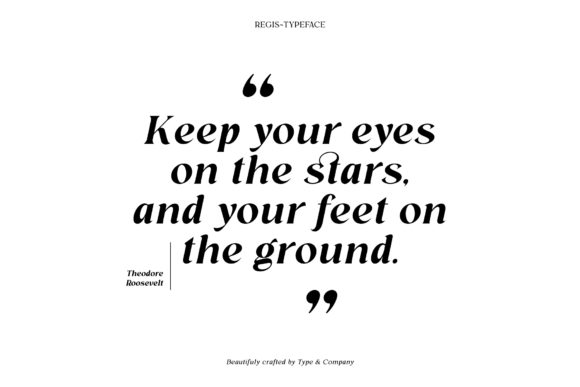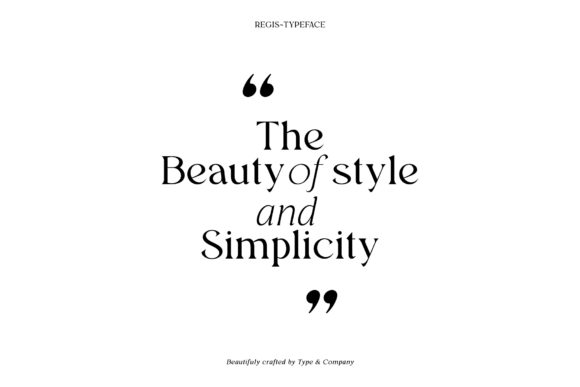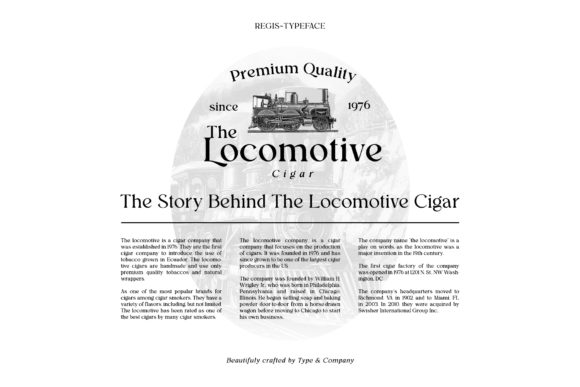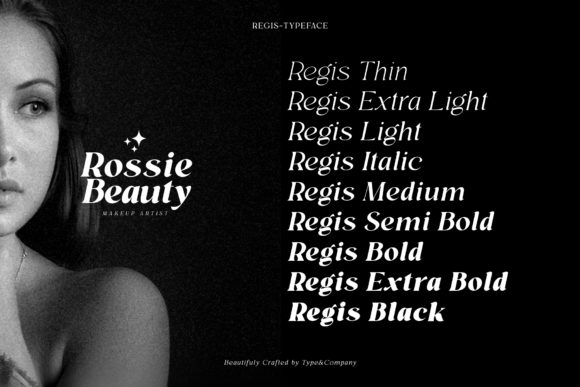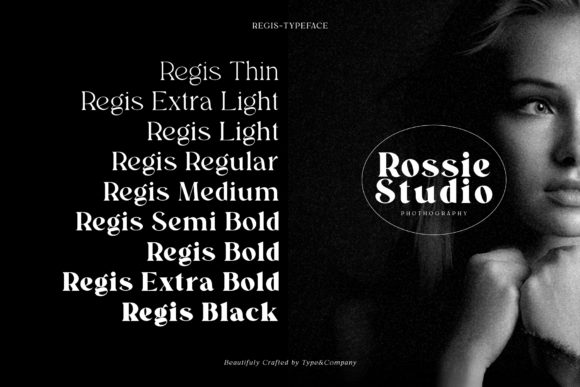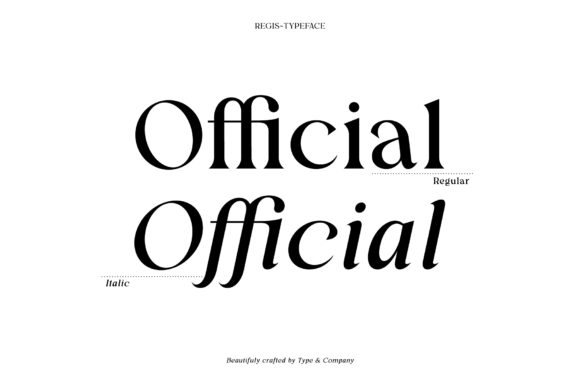
Introduction to Regis Font
Regis is a classic serif font.
| 👤 Author | Type and Co. |
Add it to your most creative ideas and notice how it makes them stand out This font is PUA encoded which means you can access all of the glyphs and swashes with ease.
Key Features of Regis Font
Why Choose Regis Font?